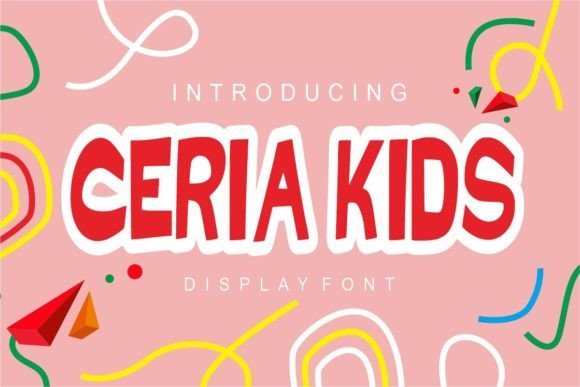
Crafting Whimsy with the Ceria Kids Font
As a designer, have you ever found yourself staring at a blank page, searching for the perfect font to bring your creative vision to life? Perhaps you’re working on a children’s book and need a font that exudes warmth and playfulness. Whatever the project, the right font can make all the difference.
Enter the Ceria Kids Font, a delightful display font designed specifically for fun and cartoonish designs. With its bold, quirky letters, this font is perfect for capturing the imagination of children and adults alike. Whether you’re designing toys, greeting cards, or educational materials, the Ceria Kids Font is sure to add a touch of whimsy and personality to your work.
Ceria Kids Font Key Features
- Unique Characteristics: Ceria Kids Font is a playful, child-friendly font designed for educational materials and children’s content. It features rounded edges and soft curves, making it easy to read for kids.
- Font Style: Ceria Kids Font comes in three styles: Regular, Bold, and Italic, offering flexibility for designers to create visually appealing content.
Ceria Kids Font Review
Overall, I’m impressed with the Ceria Kids Font. It’s designed to be playful and fun, making it perfect for kids’ content, educational materials, and even advertising campaigns targeting young audiences. Here are some aspects where it truly shines: ✨
- Unique and quirky design: Ceria Kids Font stands out from more traditional fonts, offering a unique visual identity that’s sure to grab attention.
- Highly legible: Despite its playful nature, the font remains easy to read, making it suitable for a wide range of applications.
- Customizable: The font offers various styles and weights, allowing designers to mix and match to achieve the desired look.
- May not be suitable for formal or professional content: The font’s playful nature might make it too casual for certain applications.
- Limited character set: The font may not include all the characters needed for certain languages or special symbols.
- Not as versatile as some other fonts: While Ceria Kids Font is great for kids’ content, it might not be the best choice for more general design projects.
Overall, I think Ceria Kids Font is a great addition to any designer’s toolkit. While it may have some limitations, its unique design and high legibility make it a great choice for the right projects.
Use the Ceria Kids Font for children’s educational materials, such as worksheets, activity sheets, and educational posters. You can also use it for branding and marketing materials for kids’ products or services. To get the most out of the font, experiment with different font sizes, colors, and styles to create visually appealing designs.